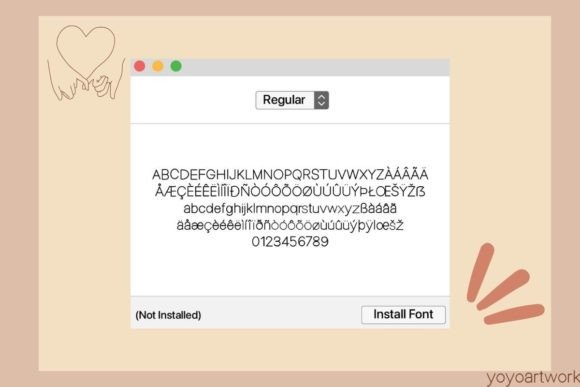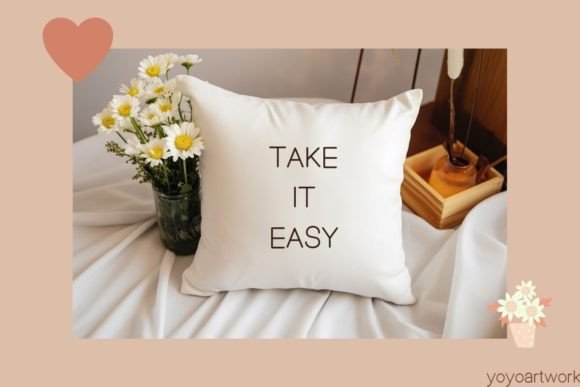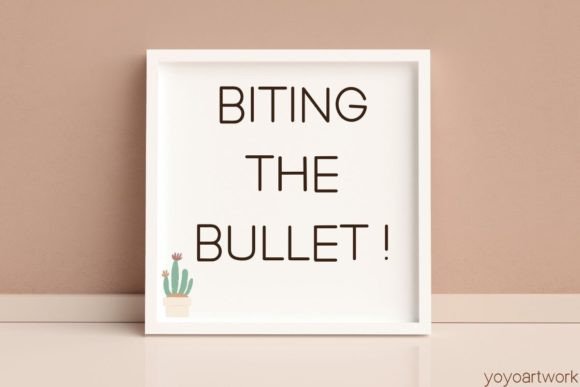
Discover the Elegance of Day School Font
Have you ever worked on a design project, only to find yourself stuck on the perfect font? I recall a recent experience where I was tasked with creating a brand identity for a local school. The client wanted a font that embodied modernity, classic elegance, and a sense of sophistication. After scouring through numerous font libraries, I stumbled upon the Day School Font, and it was love at first sight! ✨
A Perfect Blend of Modernity and Elegance
The Day School Font is a harmonious blend of modernity and classic elegance, making it an excellent choice for educational institutions, creative projects, and designs that require a touch of sophistication. With its clean lines, timeless appeal, and exceptional legibility, this font is sure to elevate your typographic identity.
What I Love About Day School Font
- ✅ Exceptional legibility, ensuring clear communication
- ✨ Unique aesthetic that sets a tone of sophistication
- ✅ Clean lines and a timeless appeal that reflects a commitment to excellence
- 💡 OpenType features, glyphs, and stylistic alternates for added versatility
Honest Review: A Few Quirks to Consider
While the Day School Font is an excellent choice, there are a few quirks to consider: 🤔
- ⚠️ Limited availability of condensed or expanded styles
- ⚠️ Some characters may require manual kerning for optimal spacing
The Designer Inspiration Behind Day School Font
The Day School Font was designed with the intention of creating a typographic identity that reflects a commitment to excellence in education. The design team drew inspiration from classic serif fonts, incorporating modern elements to create a unique and sophisticated aesthetic.
| Font Name | Day School Font |
| Author | Yoyoartworkfont |
| What is the Day School Font? | The Day School Font is a distinctive font designed for educational institutions, creative projects, and designs that require a touch of sophistication. |
| Is the Day School Font suitable for digital applications? | Yes, the Day School Font is optimized for digital use, with exceptional legibility and a range of OpenType features. |